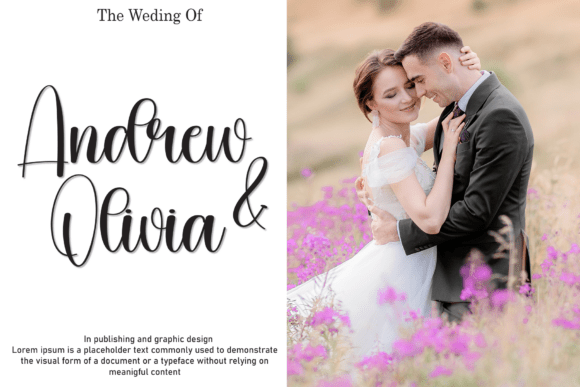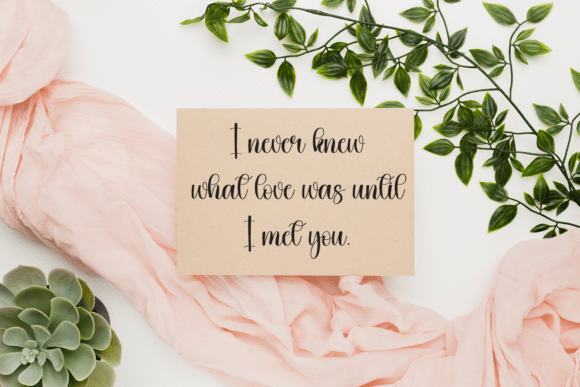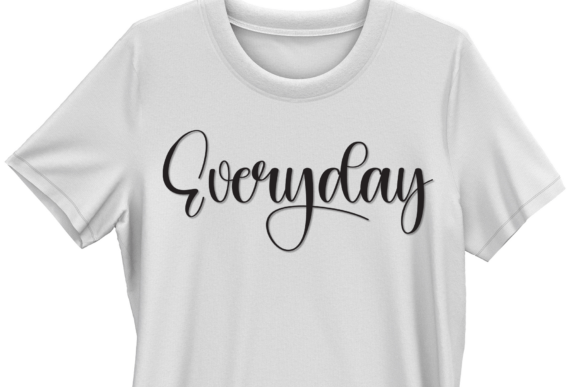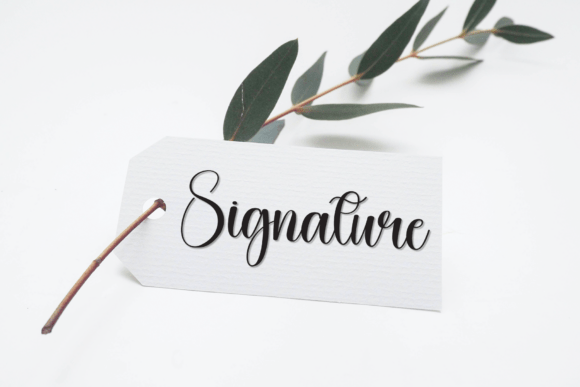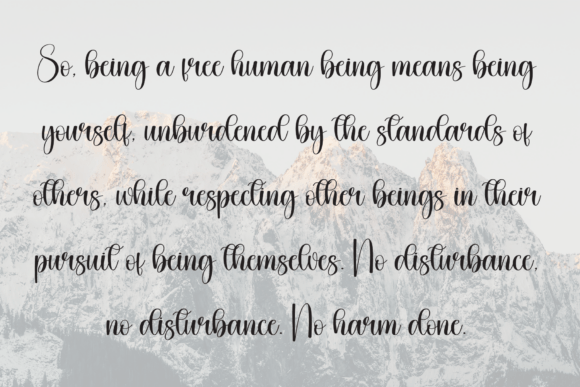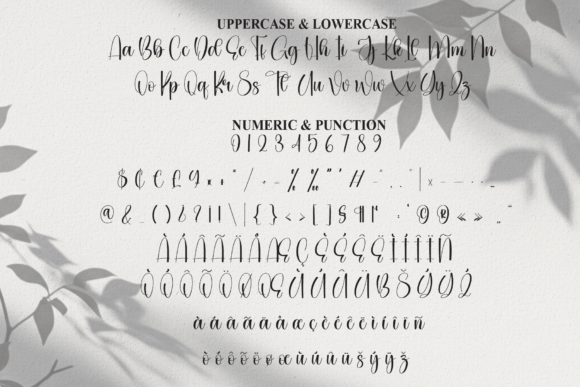
The Sweet Spot: Discovering Dignity Font’s Sugarplum
I’ll never forget the time I was working on a wedding invitation design for a dear friend. The layout was perfect, the colors were on point, but something was missing – a font that could capture the warmth and playfulness of the couple’s personalities. I scoured the internet, tried out a dozen fonts, but none seemed quite right. That was until I stumbled upon **Sugarplum**, a charming, handwritten display font that instantly brought the design to life. In this article, I’ll share my experience with Sugarplum, and explore its features, uses, and alternatives.
An Honest Review of Sugarplum
- ✨ **Friendly and Whimsical**: Sugarplum exudes a sense of friendliness and playfulness, making it perfect for designs that need a personal touch.
- ✅ **Highly Readable**: Despite its decorative nature, Sugarplum remains highly readable, even at smaller font sizes.
- 💕 **Emotional Connection**: This font has a way of evoking emotions and creating a connection with the reader, making it ideal for wedding invitations, greeting cards, and other personal designs.
While Sugarplum is an amazing font, it’s not without its quirks. For example:
- 🤔 **Limited Use in Body Text**: Due to its decorative nature, Sugarplum might not be the best choice for lengthy body text. It’s best used as a display font or in short paragraphs.
- ⚠️ **Kerning Issues**: As with any font, some users have reported kerning issues when using Sugarplum in certain design software. However, these issues can usually be resolved with a little manual adjustment.
The Story Behind Sugarplum
Sugarplum was designed by a talented type designer who wanted to create a font that would evoke feelings of warmth and happiness. Inspired by classic handwritten fonts, Sugarplum combines traditional techniques with modern flair to create a truly unique and charming font.
Q: What type of designs is Sugarplum best suited for?
A: Sugarplum is perfect for designs that require a personal touch, such as wedding invitations, greeting cards, and other personal stationery.
Q: Is Sugarplum available in different languages?
A: Sugarplum currently supports English and other languages that use the Latin alphabet. However, it’s always best to check with the font designer or foundry for specific language support.